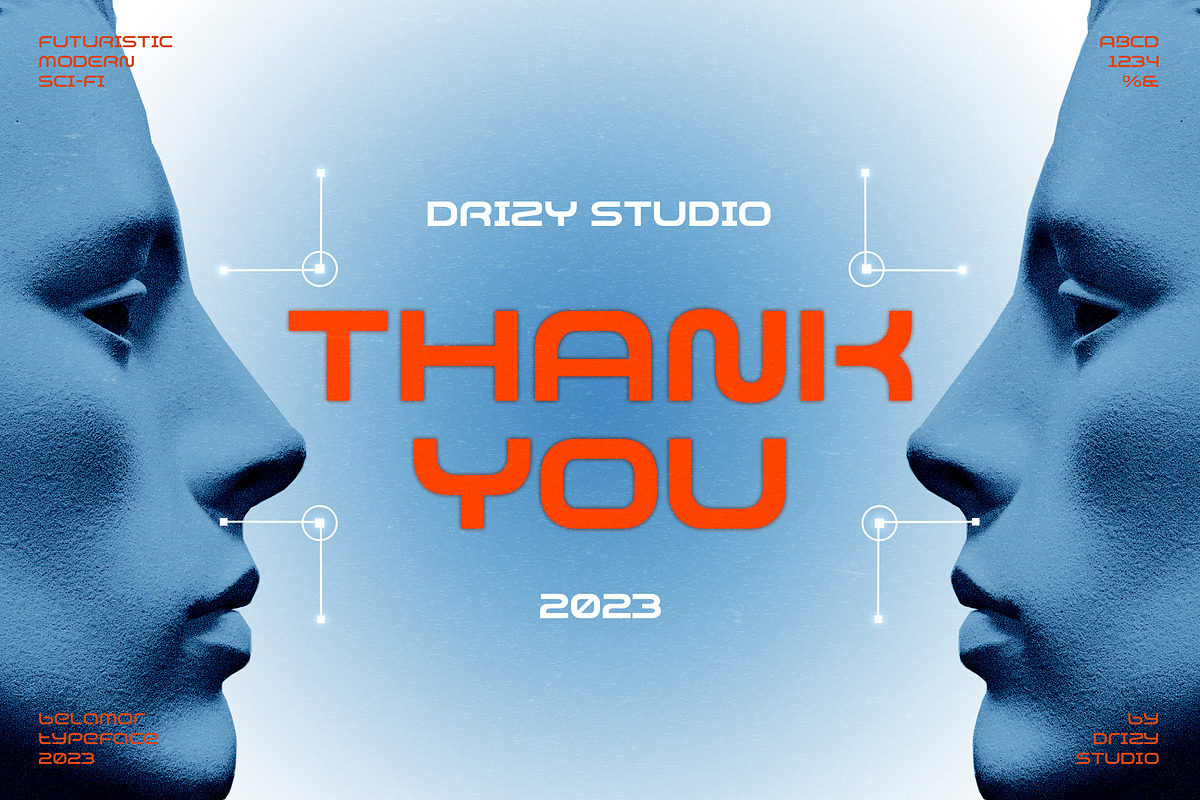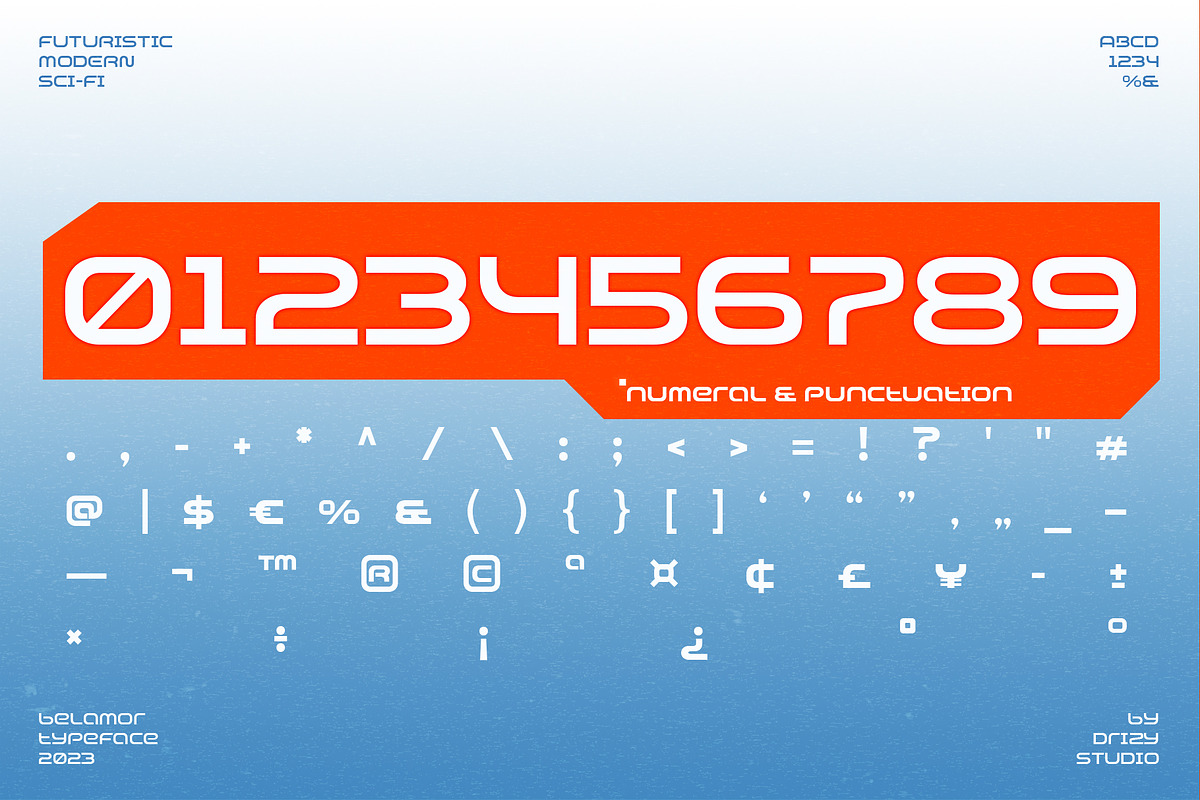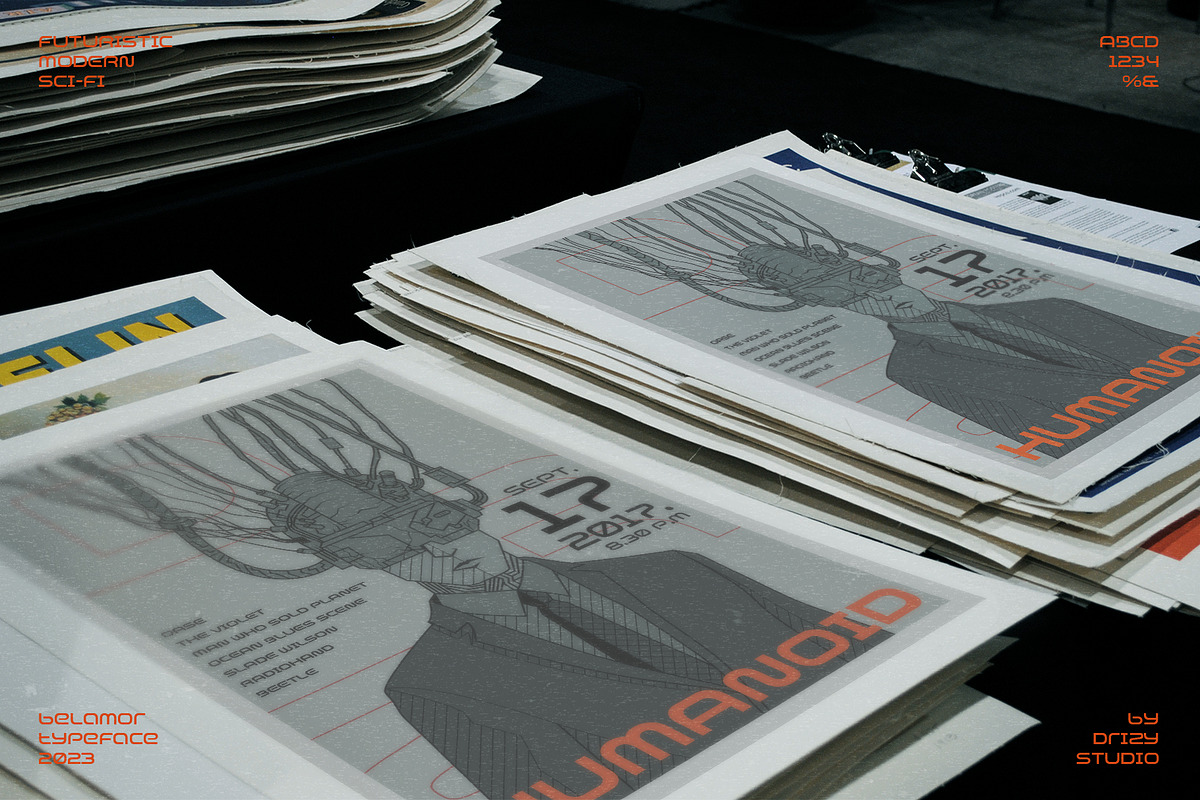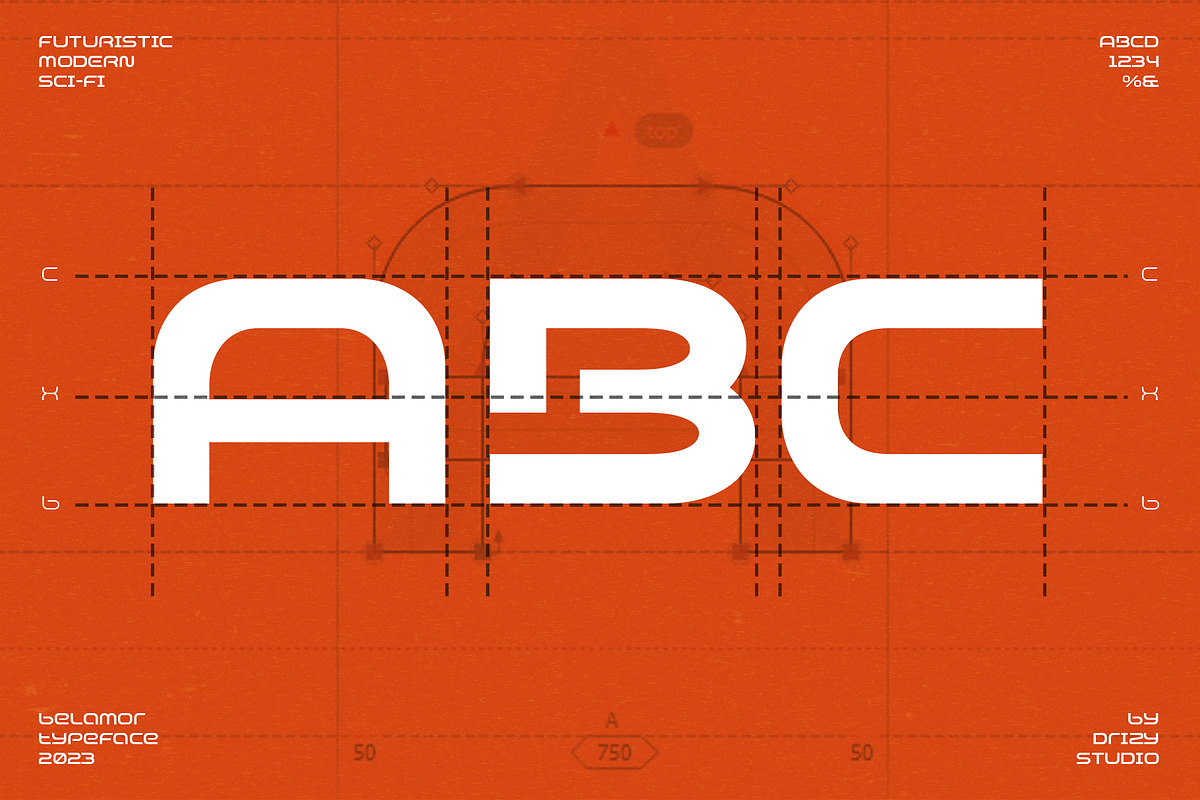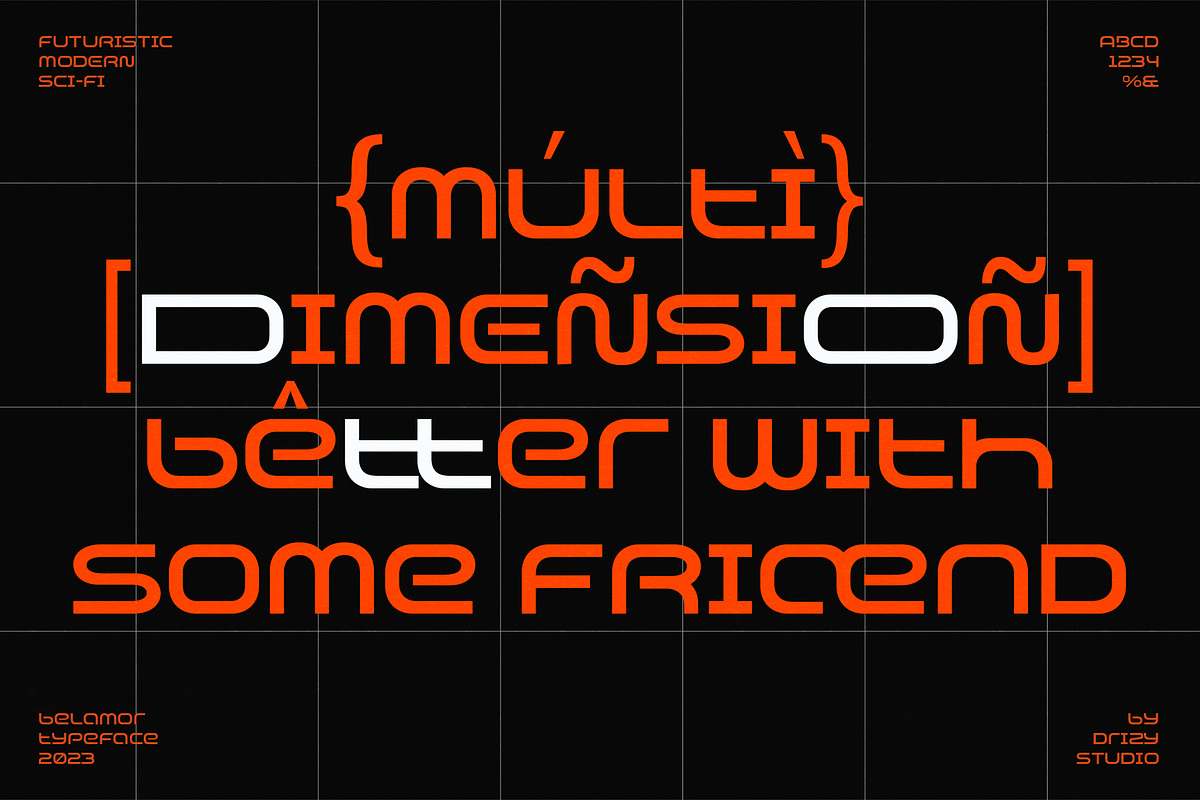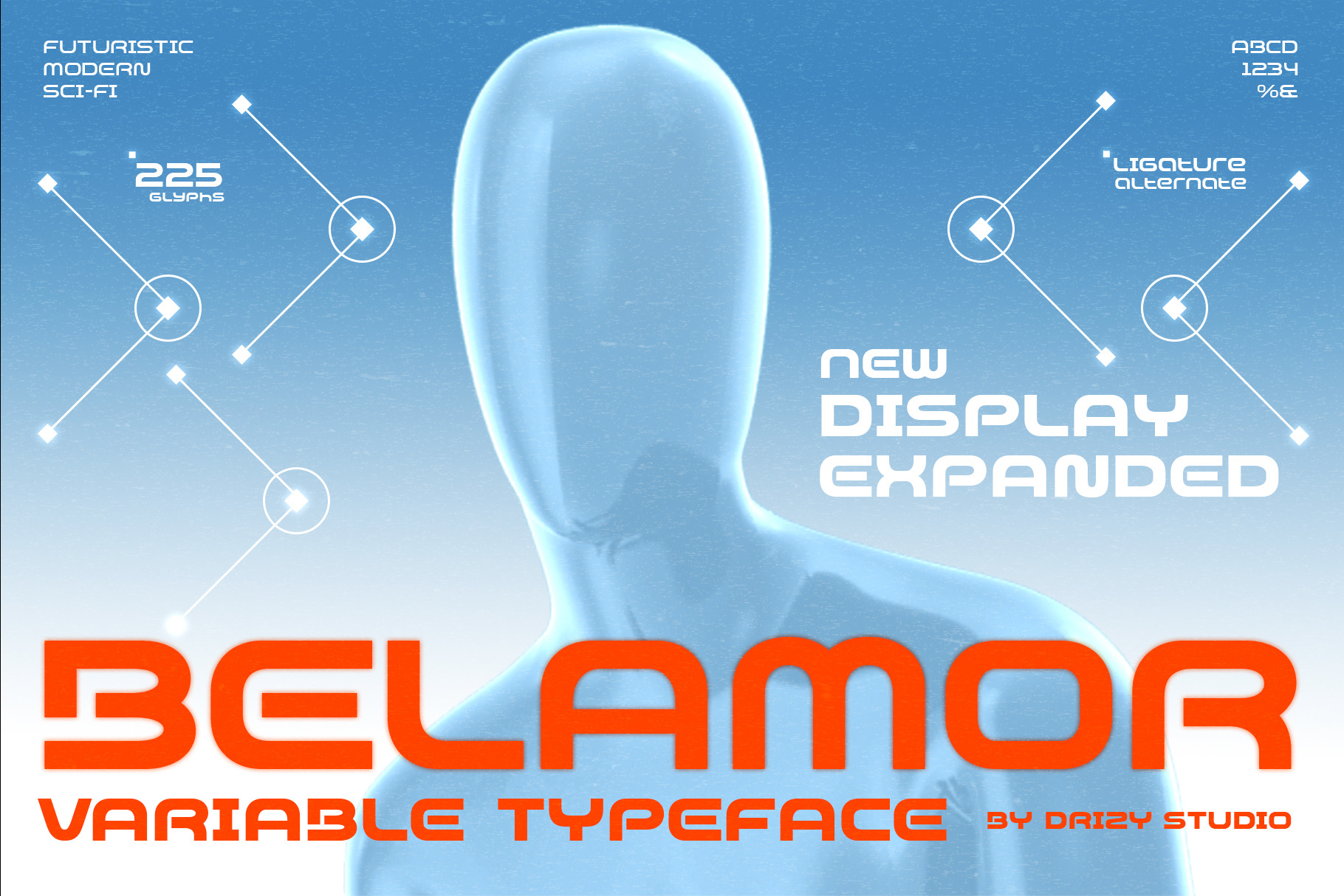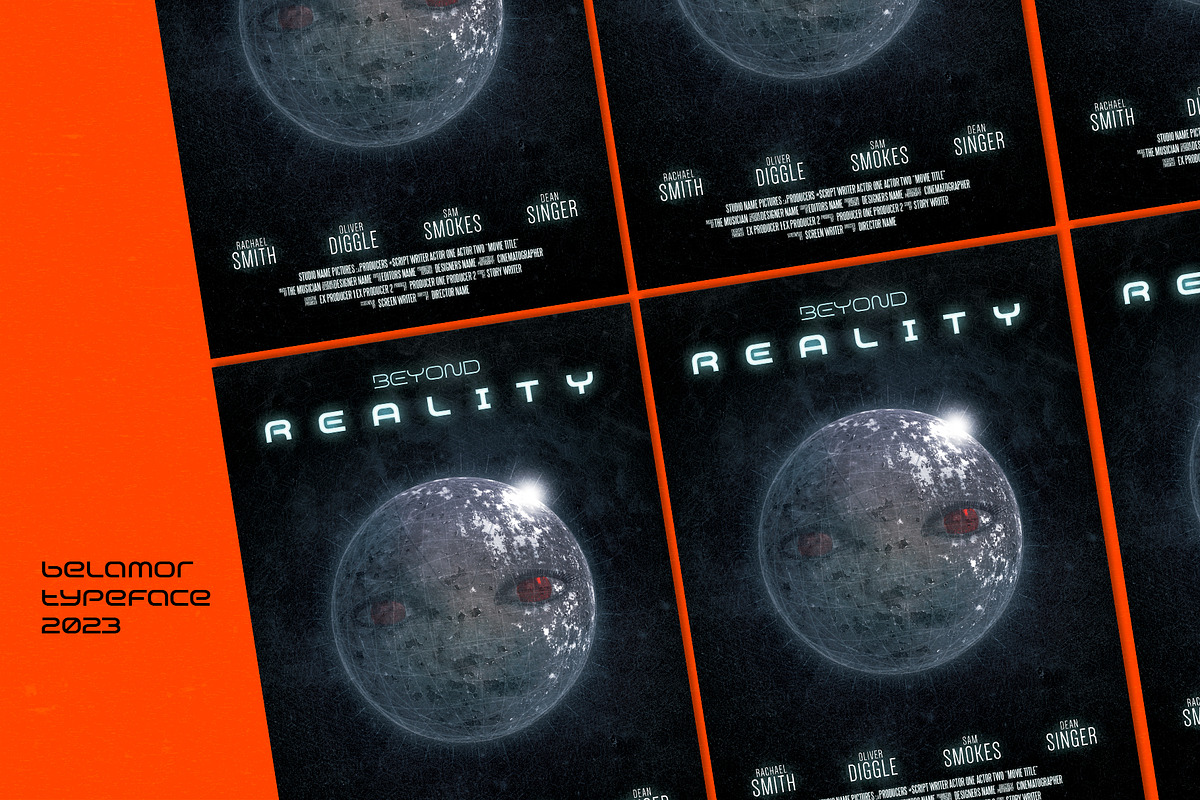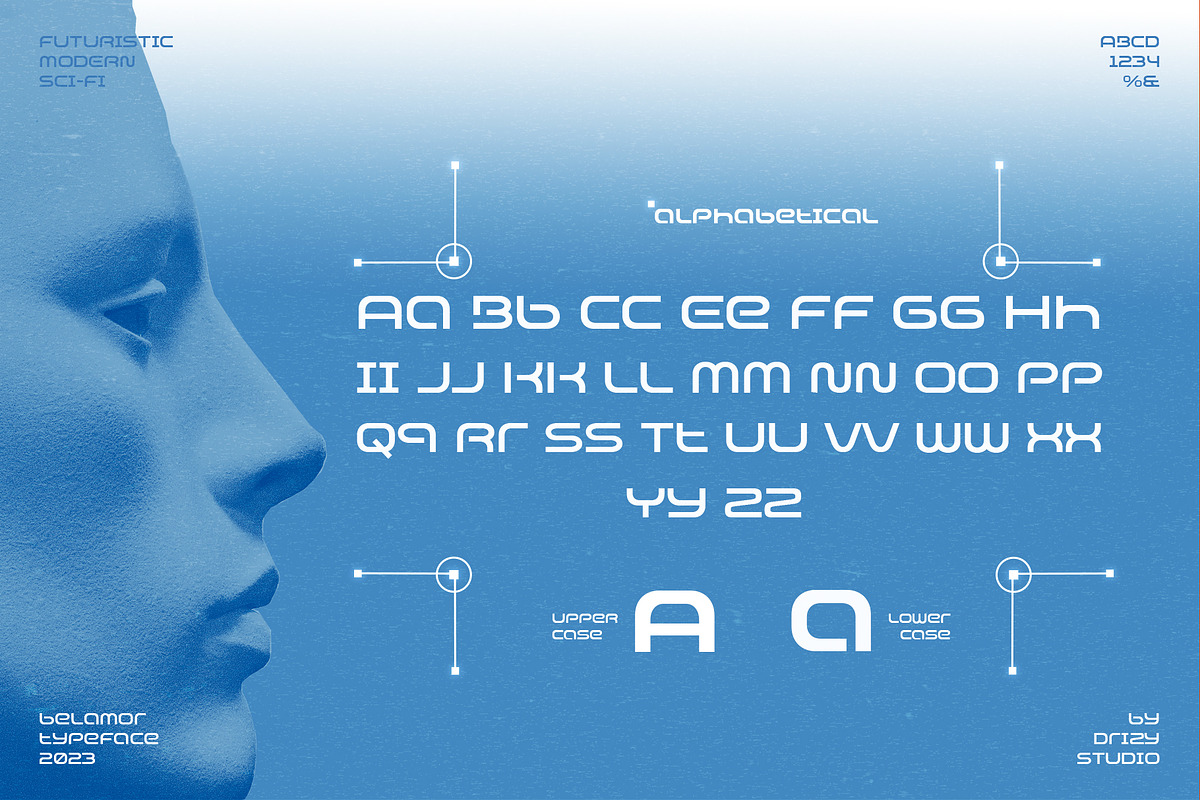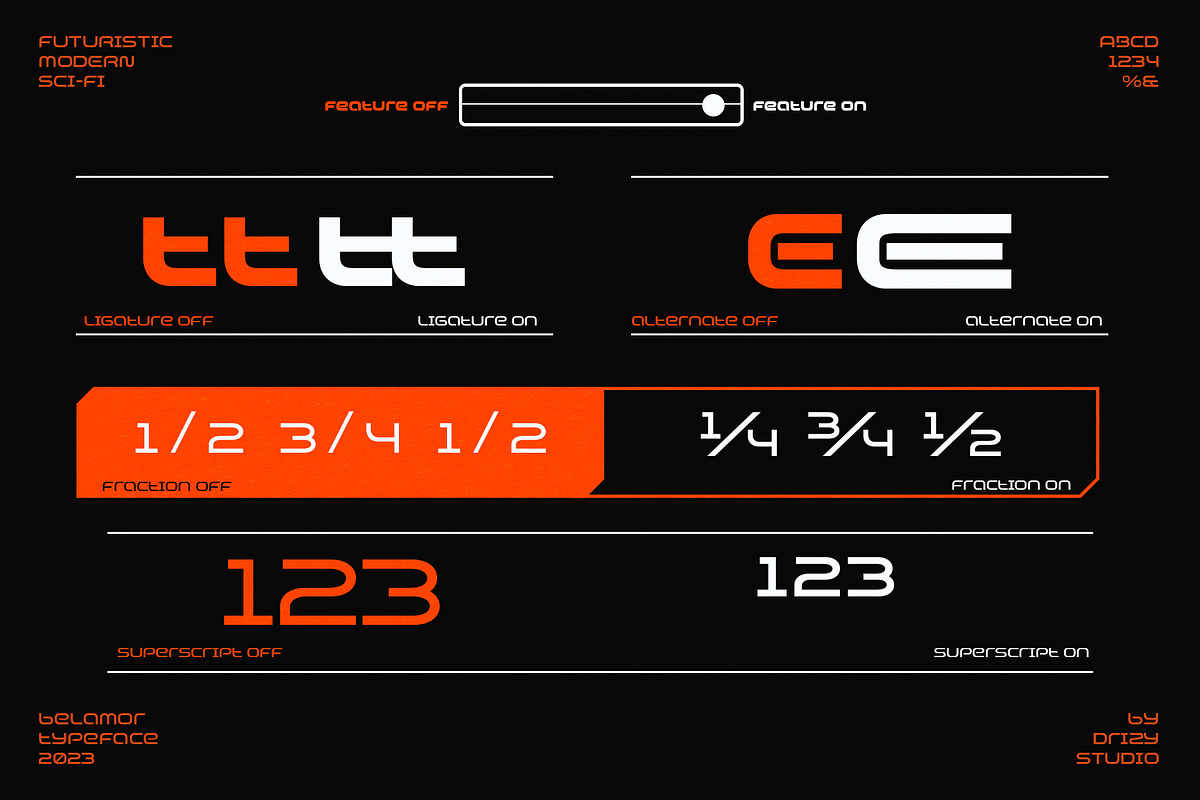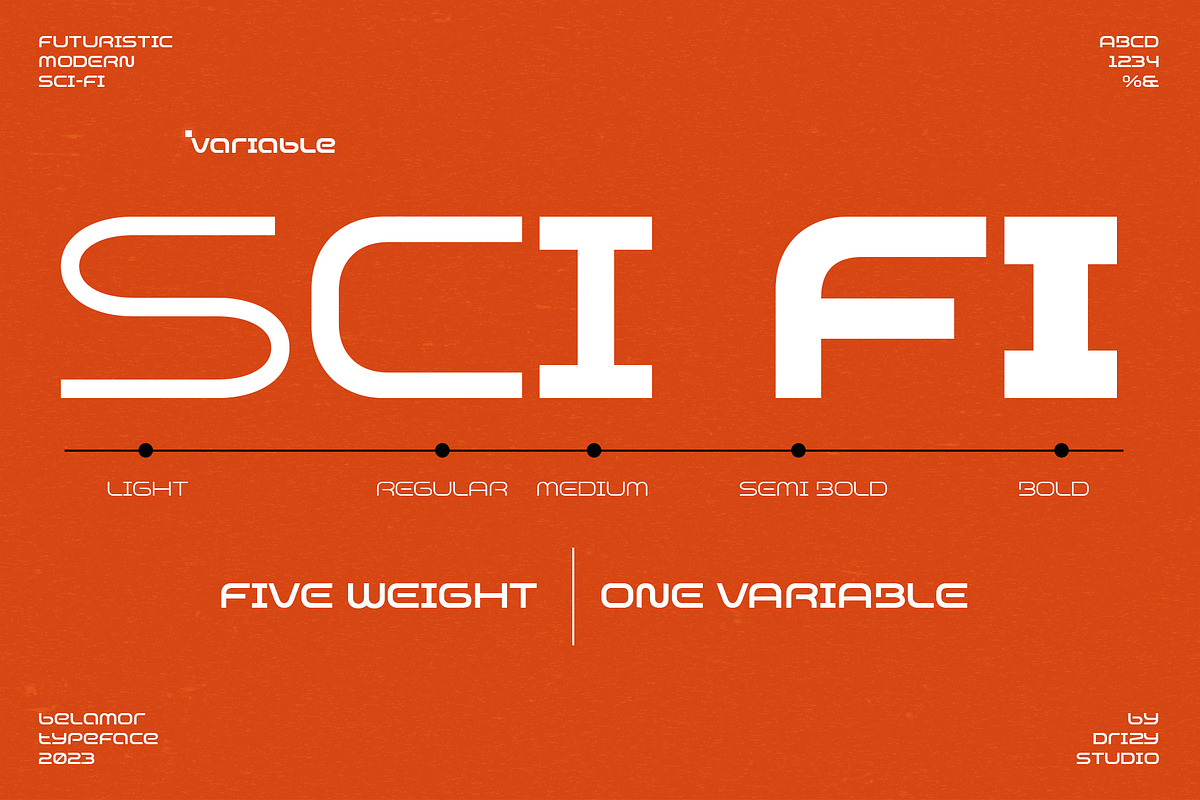
Belamor - Futuristic Variable Font
Belamor - Futuristic Variable Typeface
Step into the bold future of typography with Belamor, a cutting-edge variable font that seamlessly blends sleek modernity with futuristic sci-fi aesthetics. This font is a visual manifesto of technological evolution, designed to evoke a sense of innovation and progress in every character.
Belamor features:
- Uppercase & Lowercase (Variable: light, regular, medium, semi bold, bold)
- Punctuation & Numbers